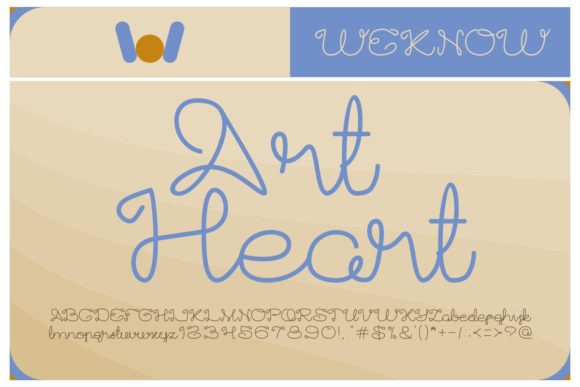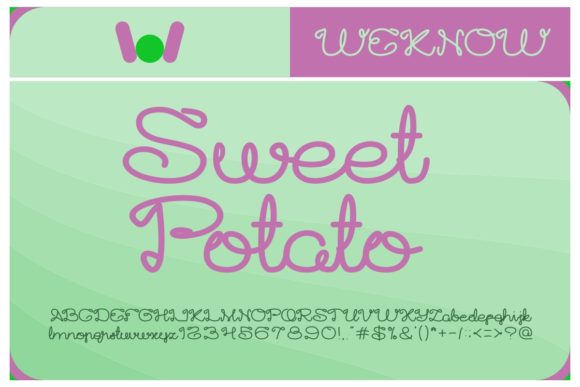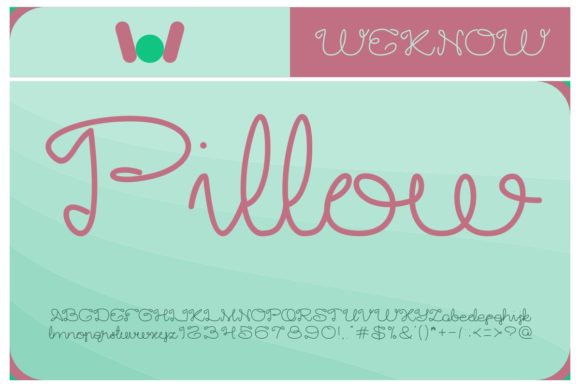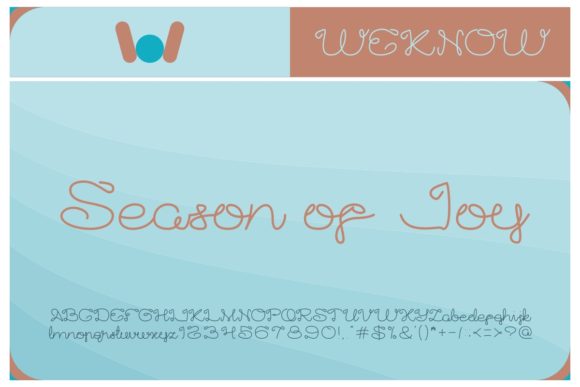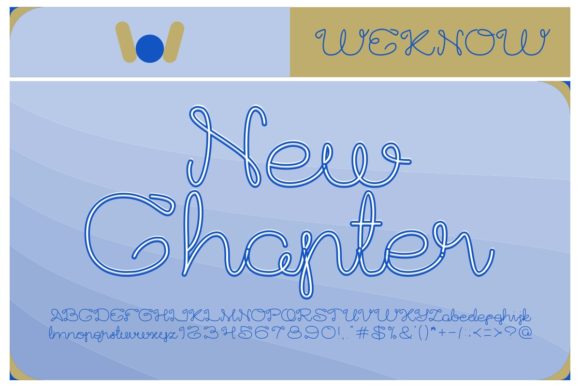
Art Heart Font
About Art Heart Font
Art heart is a cute script font, perfect for any creative design. Ideal for logos, t-shirt designs, magazine covers, and any other visual designs.
Give your new projects a creative spark with this lovely font.